[Article] New Graphic magazine (China)
Chinese New Graphic magazine interviewed us with 14 questions such as difficulty of the development of Japanese typography design and the next-generations typeface designs.
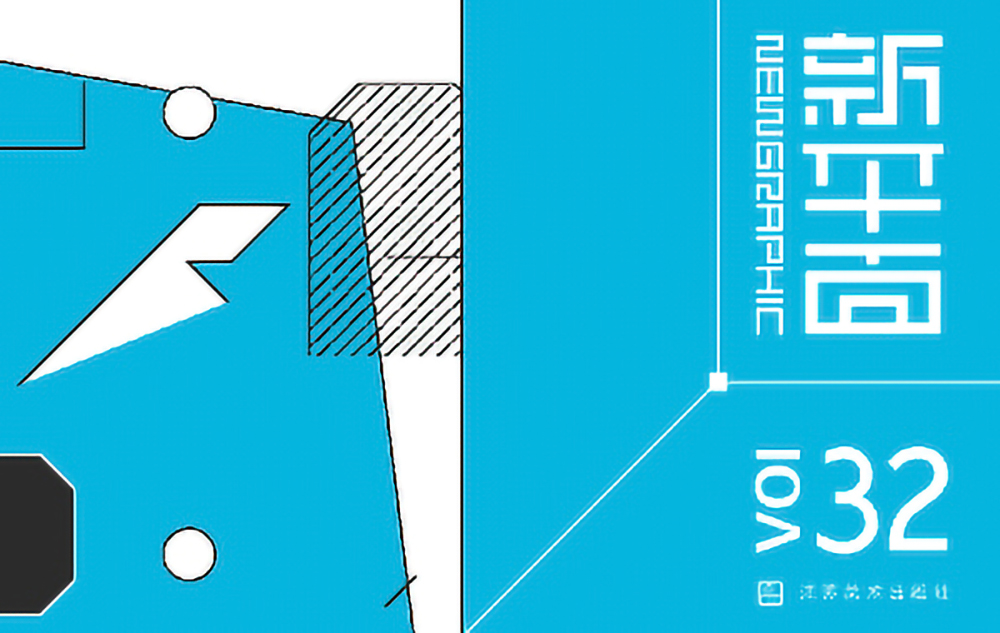
New Graphic誌は中国SeeCoo社より国内外の現代グラフィックを紹介し研究する雑誌として発行されています。専門家としての視点からグラフィックデザインの精神とその意味を探求し、中国国内の産業の発展と開発および新しい作品や新進のデザイナーにフォーカスした記事も多く掲載されています。
1.Please briefly introduce the development of Japanese typography design.
We mainly use Adobe Illustrator to create Kana characters. For Kanji characters, we use some software applications and programs including original tools. It has taken 18 months to 24 months so far for four designers to develop Adobe Japan 1-3 font set that contains 9,354 characters in total. In many cases I ask myself what the desired font design will be like in three years time, even what the most commonly used fonts in the market will be like in ten years time. Speaking from greater perspective, I consider the historical development of typefaces.
2.“To broaden the potential of written characters. This is the central motivation behind Type Project.” Please tell us more detail about this central motivation.
We face many situations where typefaces should be more utilized and/or it would be much better if they are used in a more effective and practical manner. We believe there is immense potential here.
3.Please talk about one of your favorite or most memorable typography works.
The most memorable one is a poster of the characters”代/dai”and “典/ten” which were dynamically trimmed by Ikko Tanaka. I saw it at the Nara Prefectural Museum of Art in 1988 when I was a university student.
4.What are your options for hand-made typography and computer-made typography while you are working?
Although I am sketching ideas by hand on a daily basis to develop new designs of typefaces, I use a computer for more than 90% of font development work.
5.More and more people are getting used to typing on keyboards and mobile phones instead of writing a letter by hand. What do you think about this phenomenon?
It is difficult to change the flow of society, of course. However, it is a very interesting challenge for me, as a typeface designer, to convert the excellence of handwriting into digital form.
6. Is there any difficulty to work on different structural characteristics of Kanji, Hiragana, Katakana and even English characters?
There is a lot of difficulty here, but it can also be said to be a fun part of my work.
7.It’s my imagination that typography design’s property protection is strictly protected and implemented in Japan. Could you please share the current status with us?
In Japan, I think copyrights of typeface designs are controlled by the morality of users, rather than protected by law. To prevent illegal copying, technical protection should be considered fundamental. We will soon have a better method of solving illegal copy issues, and this method would at the same time limit potential inconvenience to our users.
8.Typography designs in China didn’t receive effective commercial promotion and development. Please express your views and suggestions on this phenomenon.
Even if commercial or economic problems lie ahead, I believe that personal strong thought brings breakthroughs like 顔真卿/Yan Zenging, 蘇東坡/Su Shi and 黄山谷/Huang Tingjian did in Chinese calligraphy history. Acknowledging their meritorious improvements, it is my belief that there is a way of thinking that adverse circumstances improve words and typography. It might encourage you.
9. The City Fonts design is being applied around Japan, it is very beautiful! While in China, the application of font designs and uses in urban landscapes and public buildings is not uniform, what do think about this? Any suggestions?
Thank you for your words about the City Font project. Most of the cities, if not all, have various adjectives to describe them. So it is difficult to represent a city with one typeface. The hint of how a city is trying to portray itself can be understood from the structure of the font family. Appropriate choice of font family is an important key for showing the personality of a city. Some cities’ dedicated use of certain fonts render a strong connection for me between font and city. When I designed Kinshachi Mincho, I imaged a young wealthy lady in Nagoya city. And I imaged people’s voices, which were familiar with older culture and customs of Nagoya city for Kinshachi Kuroji.
10.How do you consider the typography design applied on applications nowadays?
If you consider the unique ability of digital font thoroughly, I believe there are big possibilities. New challenges always seem to come with technical difficulty, so it is indispensable to have the support of excellent engineers.
11.How do typography designs influence social culture and commercial environments?
Common typefaces used in everyday life tend to not get enough attention especially if they are superior. But a decade later, you will be able to understand that they were an important element expressing aerial feelings and preferences of the times.
On the other hand, typefaces in commercial environments are required to have the effectiveness of getting more attention in a short period of time. This is determined by the demand of the times and I believe there are typefaces that are created for certain times only.
For the past few years in Japan, there has been enthusiastic interest for font design. As a result, the number of aspirant font designers has increased. However I believe there are only few people that are aware of the difficulty of font development and the economic problems of the font industry. About 90% of font development is quiet and challenging. Some people enjoy such work, but others can’t tolerate it. One thing that I can say however, is that some designers feel the significance of their work and enjoy it even though it’s tough.